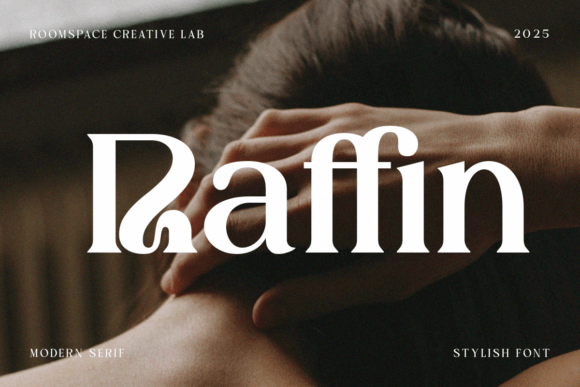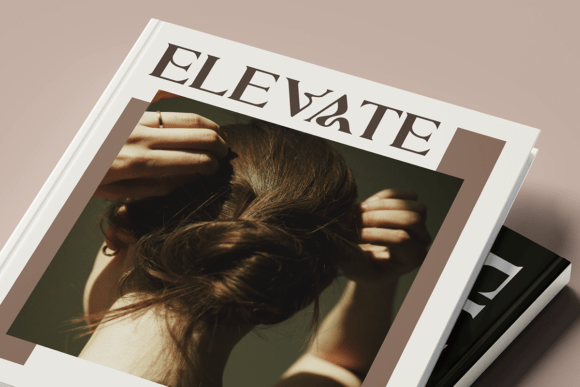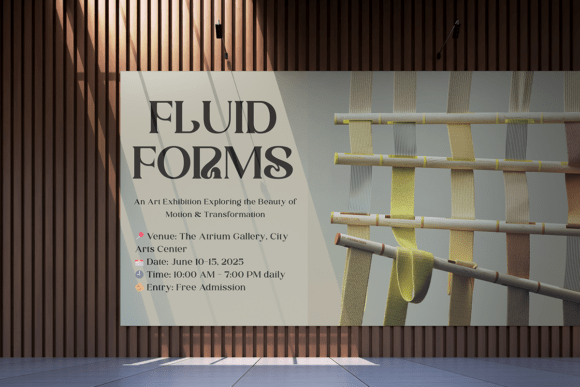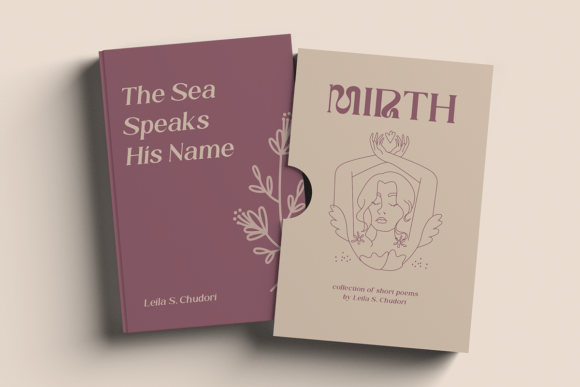
Raffin Font: Elegant Serif for Modern Branding & Logo Design
About the Raffin Font
Let us introduce you to Raffin Font, where timeless design meets modern craftsmanship. Raffin is a modern serif font that seamlessly blends sculptural elegance with typographic clarity. It is built for creatives and brands that aim to appear poised yet approachable, commanding yet soft. Raffin’s design flows with a sophisticated rhythm, using pronounced vertical stems and gracefully tapered curves to create a visual tension that feels both timeless and fresh. Its energy is quiet but confident—never overstated, yet undeniably striking.
This font’s charisma lies in its refined, high-contrast structure. The letterforms are slightly condensed with sculpted terminals that give it a clean editorial flavor. Though rooted in traditional serif DNA, Raffin’s stylized cuts and deliberate quirks modernize its character, allowing it to live comfortably in both minimalist luxury and soft, lifestyle-driven aesthetics. It is perfect for industries ranging from wellness and skincare to high-end fashion, boutique branding, editorial layouts, and artisanal packaging.
Whether it’s on a product label, in a lookbook, or leading a website header, Raffin brings harmony and hierarchy to your typography. It balances expression with restraint, making it a go-to for elegant design systems where every element matters.
Raffin Font Usage Examples
Raffin Font Example